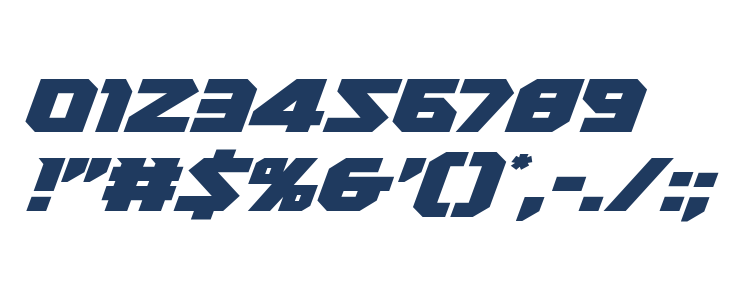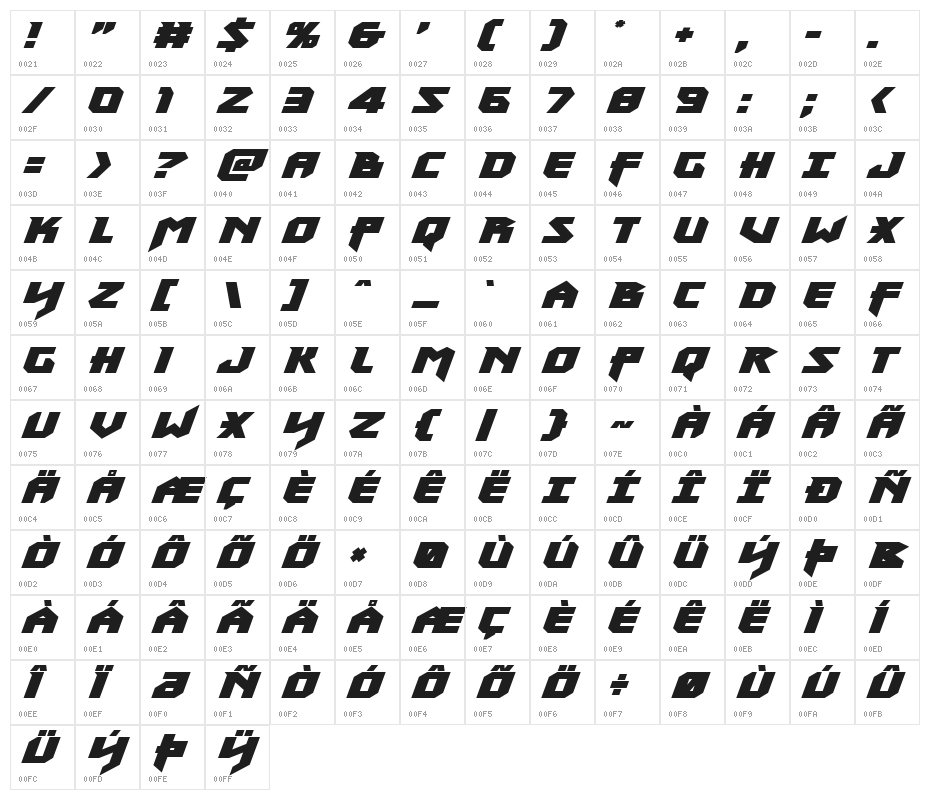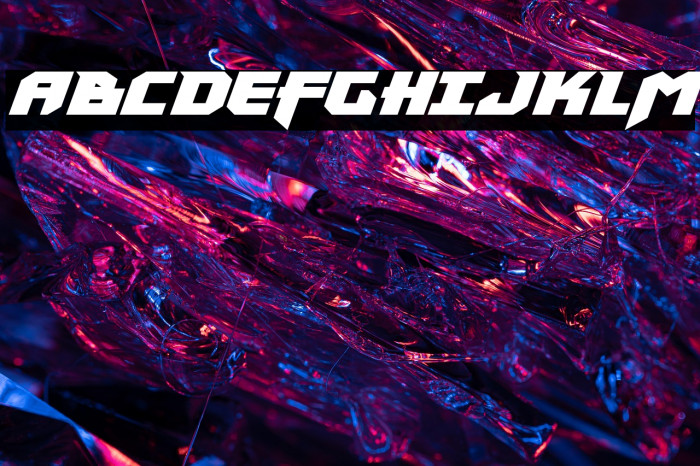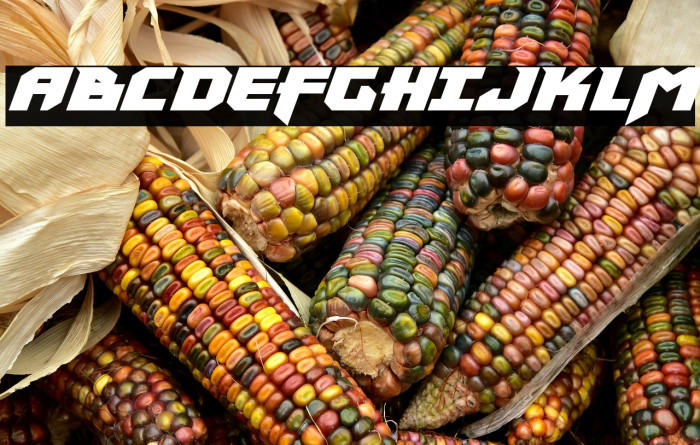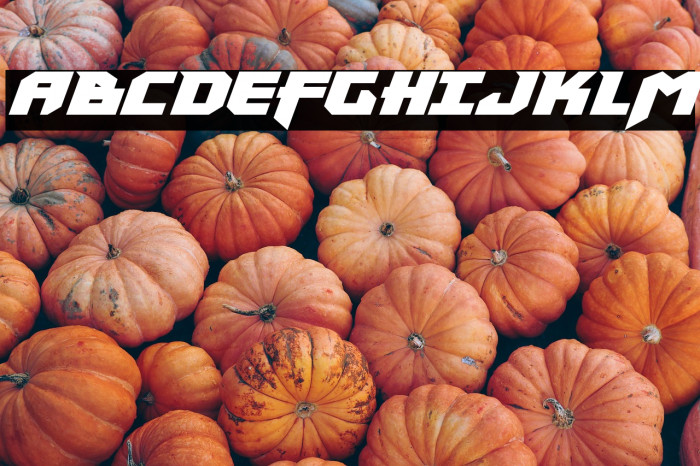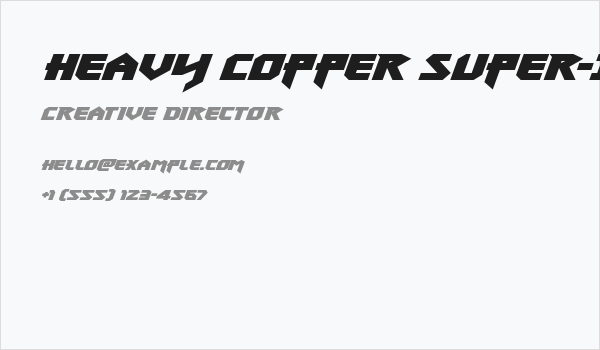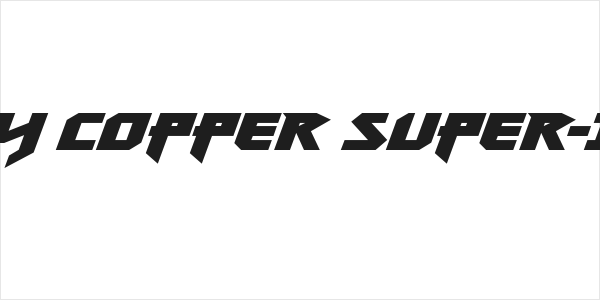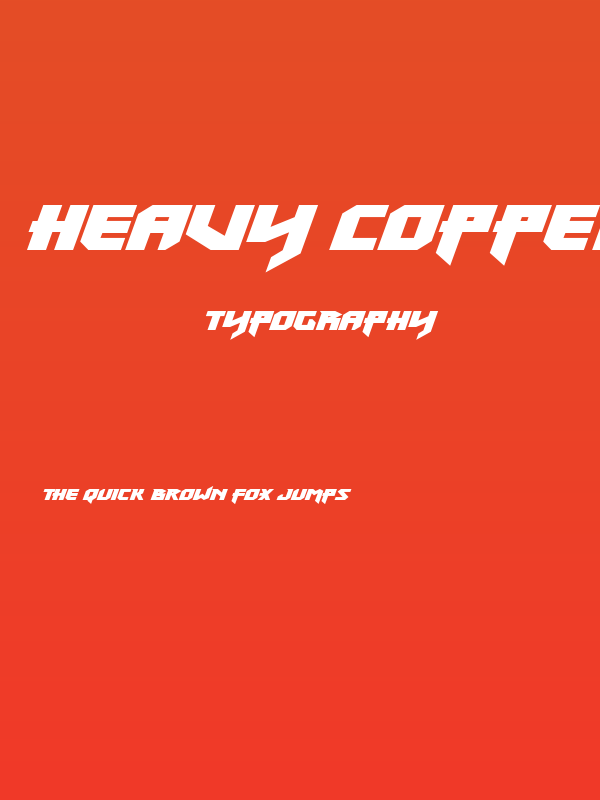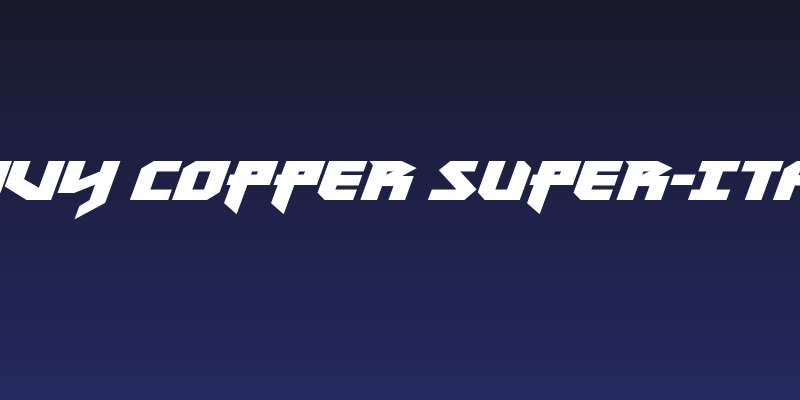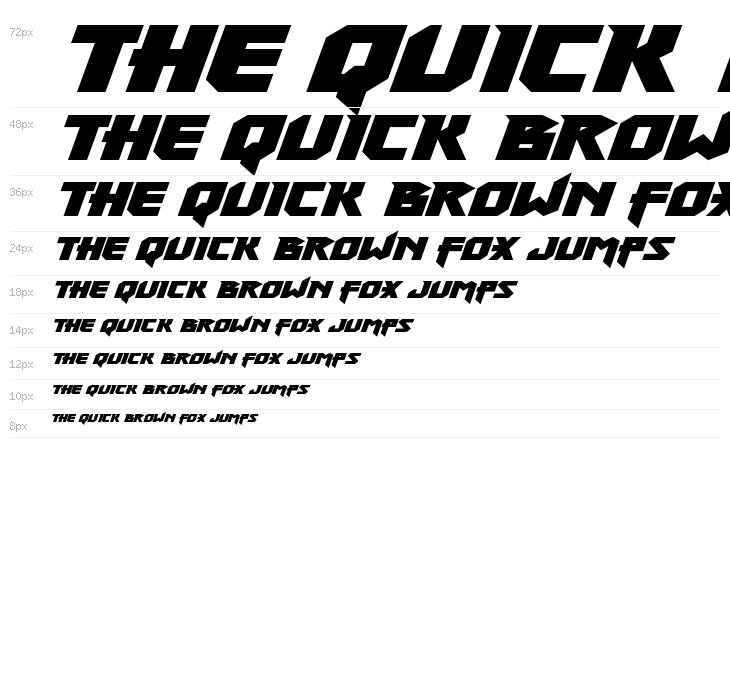
Heavy Copper Super-Italic Font
Heavy Copper Super-Italic Description
This font features a bold and dynamic design with sharp, angular edges and a strong italic slant. The characters are heavily stylized, giving them a futuristic and aggressive appearance. The uppercase and lowercase letters maintain a consistent style, with exaggerated serifs and a sense of motion. The numbers and special characters follow the same design principles, ensuring uniformity across all glyphs. The overall look is striking and impactful, making it ideal for attention-grabbing headlines or branding that requires a bold statement.